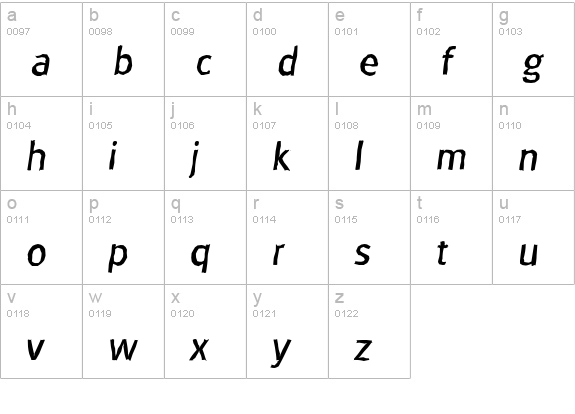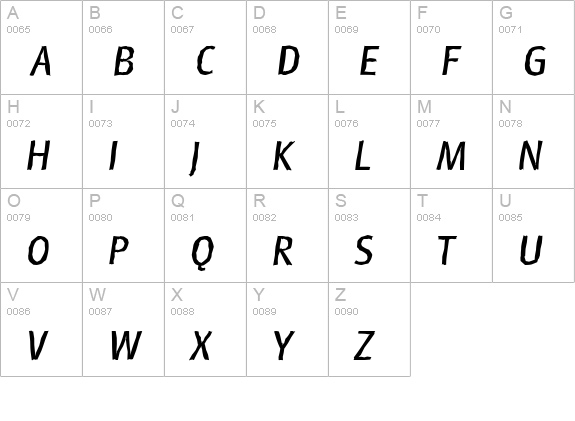
GlasgowAntique-Italic Font Details
GlasgowAntique-Italic is a distinctive, italic variant in the GlasgowAntique typeface family \xE2\x80\x94 well suited to design and typography projects.
GlasgowAntique-Italic font is a classic and elegant typeface that exudes a timeless charm. Its intricate detailing and graceful curves make it perfect for adding a touch of sophistication to any project. The italic style gives a sense of movement and fluidity, making it ideal for conveying a sense of elegance and refinement. What's even better is that GlasgowAntique-Italic font is available for free download at FontsMarket.com. So whether you're working on a vintage-inspired design project or looking to add a touch of old-world charm to your work, this font is a perfect choice. Elevate your designs with GlasgowAntique-Italic font today!